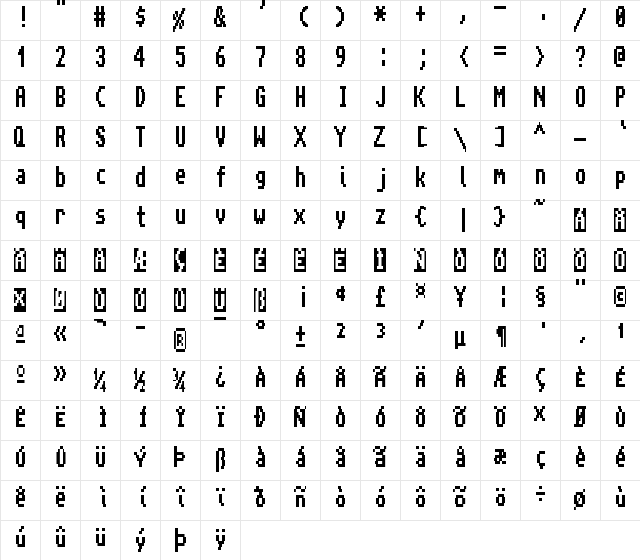
Amiga Topaz Unicode Rus Regular
| Designer | dMG of Trueschool and Divine Stylers |
Design Context for Amiga Topaz Unicode Rus Typeface
Amiga Topaz Unicode Rus uses fixed-width spacing throughout, giving it the structured, systematic character associated with coding environments and technical documentation.
A natural fit for code editors, technical documentation, developer-focused branding, and terminal-inspired UI.
Pro Tip: Pair Amiga Topaz Unicode Rus with a proportional sans for UI contexts where code-style labels and regular body copy need to coexist.